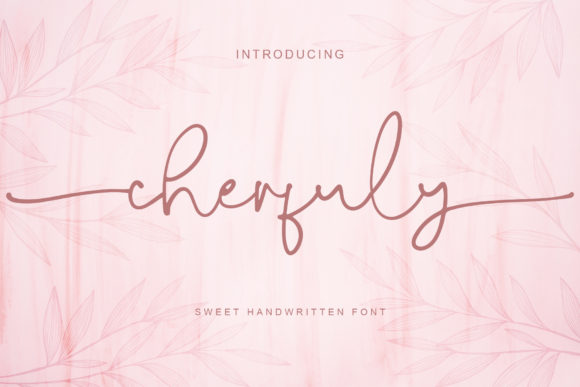
Gaze upon Cherfuly Font, a mesmerizing handwritten script font, meticulously crafted by alphArt, a renowned font artist. Cherfuly offers an irresistible fusion of elegance and playfulness that will elevate your designs to new heights. Its graceful curves and stylish swashes dance across the page, creating a visual symphony that captivates and enchants.
Cherfuly's PUA encoding grants you effortless access to a treasure trove of stunning glyphs and swashes, allowing you to unleash your creativity and add a touch of magic to your projects. Experiment with an array of alternate glyphs and ligatures, enhancing your designs with intricate details and captivating flourishes.
Whether you're a seasoned designer or just starting your creative journey, Cherfuly is the ultimate font companion. Its user-friendly nature ensures a smooth and enjoyable experience, empowering you to effortlessly transform your ideas into visual masterpieces.
Step into the realm of Cherfuly and witness the boundless possibilities it holds. Its timeless beauty will enhance your designs, leaving a lasting impression on your audience. Cherfuly is not just a font; it's an artistic expression that breathes life into your creations.